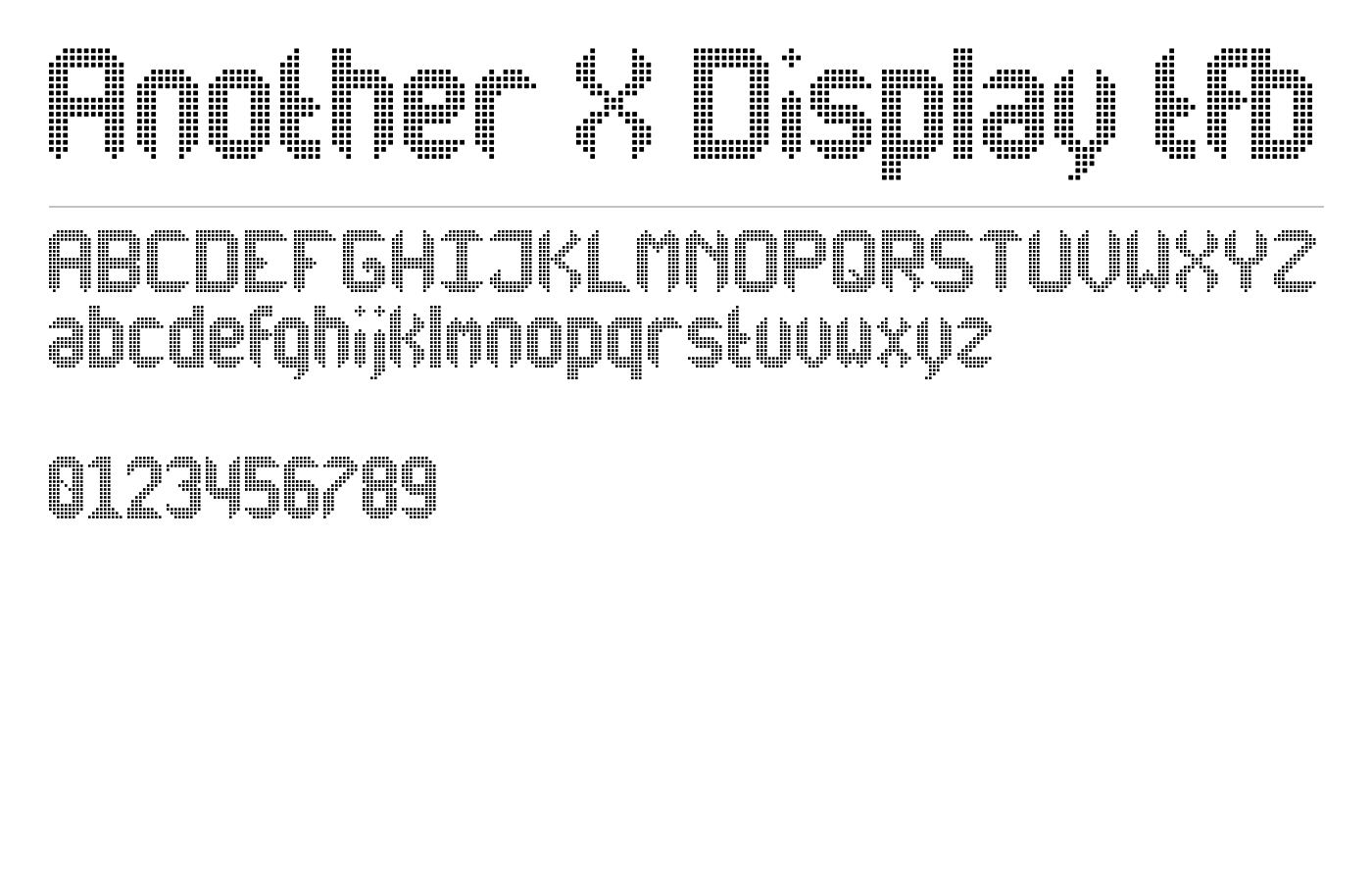
Another X Display tfb is a pixelated sans serif font characterized by its blocky, grid-like structure that evokes a retro digital or arcade style. With a consistent weight and geometric simplicity, this font works best for tech-inspired designs, video game titles, or digital displays where a nostalgic yet modern feel is desired. Its distinctive dot-matrix appearance makes it a striking choice for attention-grabbing headlines and creative branding.
Another X Display tfb Font
About Another X Display tfb Font